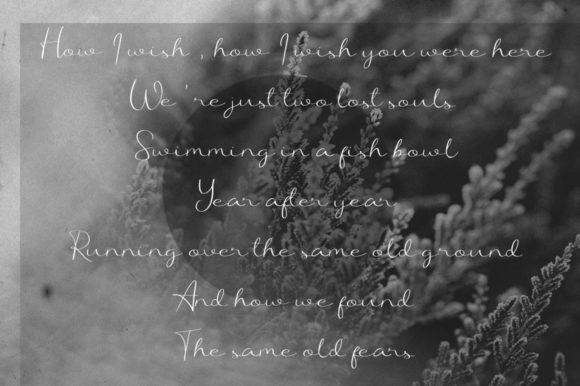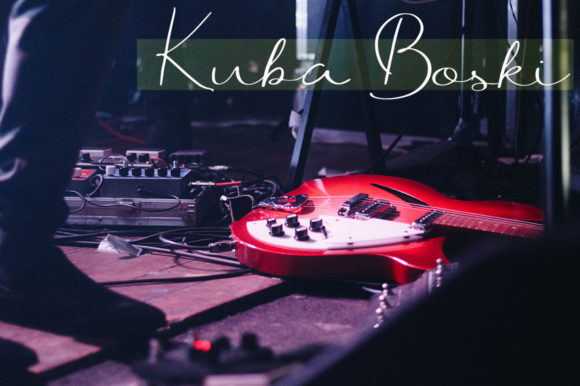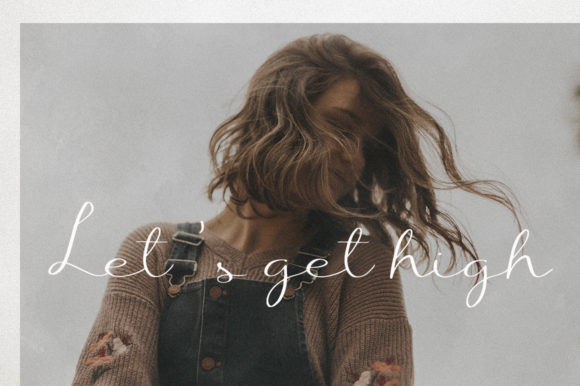
Introduction to Noctunal Font
As a designer, have you ever found yourself struggling to convey the perfect mood in your creative project? Perhaps it’s a serene midnight scene, a peaceful forest at dawn, or a luxurious evening gala. Whatever the vision, the right font can make all the difference. That’s where the Noctunal Font comes in – a fresh, authentic, and elegant typeface that’s about to become your new go-to design resource.
Noctunal Font is more than just a pretty face; it’s a high-quality design element that can elevate your project from ordinary to extraordinary. With its natural feel and sophisticated aesthetic, this font is sure to add a touch of class to any design idea. Whether you’re working on a free download or a paid project, Noctunal Font is an essential addition to your design toolkit.
Key Features of Noctunal Font
- High-quality, professional font design perfect for creative projects, including graphics, logos, and branding materials.
- Features a unique, elegant design with a subtle, sophisticated aesthetic, making it perfect for high-end creative projects.
Honest Review: Nocturnal Font
As a designer, I’m always on the lookout for high-quality fonts that can elevate my creative project. Recently, I had the chance to work with the Nocturnal Font, and I must say, it’s been a game-changer.
- ✨ The font’s sleek, modern design makes it perfect for minimalist projects.
- ✨ The transparent background allows for easy customization and layering.
- ⚠️ The font may not be suitable for projects requiring bold, dramatic typography.
- ⚠️ Some users may find the font’s simplicity too plain.
Overall, I’m impressed with the Nocturnal Font’s versatility and ease of use. It’s definitely a design resource I’ll be reaching for in the future. With its high-quality design and transparent background, it’s a great option for designers looking to add a touch of sophistication to their creative project.
Experiment with different font sizes and styles to create a unique look. Use the transparent background feature to create a cohesive design. Consider pairing the Noctunal Font with other design elements, such as graphics or images, to add depth and interest to your project.
The Noctunal Font is perfect for a variety of creative projects, including social media graphics, business presentations, and marketing materials. Its high-quality design and transparent background make it an excellent design resource for any project.
Alternatives to Noctunal Font
Fontin is a high-quality, elegant font ideal for creative projects requiring a sophisticated and refined look. It features a transparent background, making it suitable for use on various backgrounds. For a free download, Fontin is a great design resource.
Fontin compares to Noctunal Font in its clean and minimalist design, but with a more subtle flair. When to use: for designs that require a touch of sophistication and elegance.
Montserrat is a popular, high-quality font perfect for creative projects needing a modern and sleek look. It features a transparent background, allowing for seamless integration with various design elements. As a free download, Montserrat is a valuable design resource.
Montserrat differs from Noctunal Font in its more geometric and modern design. When to use: for designs that require a clean, contemporary look.